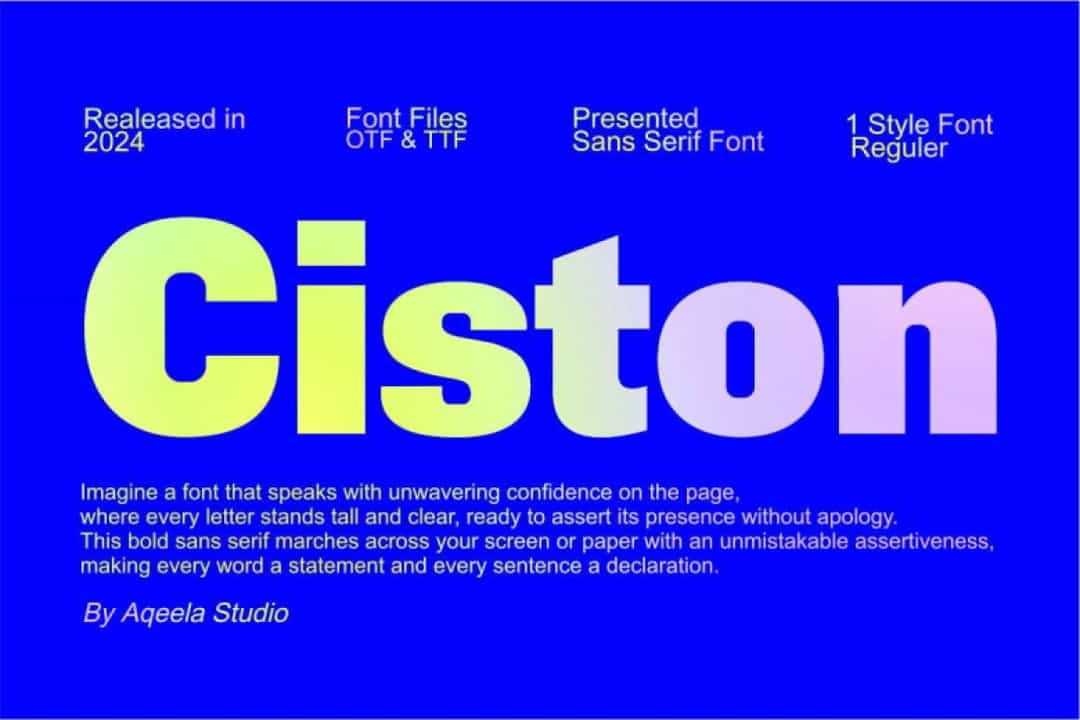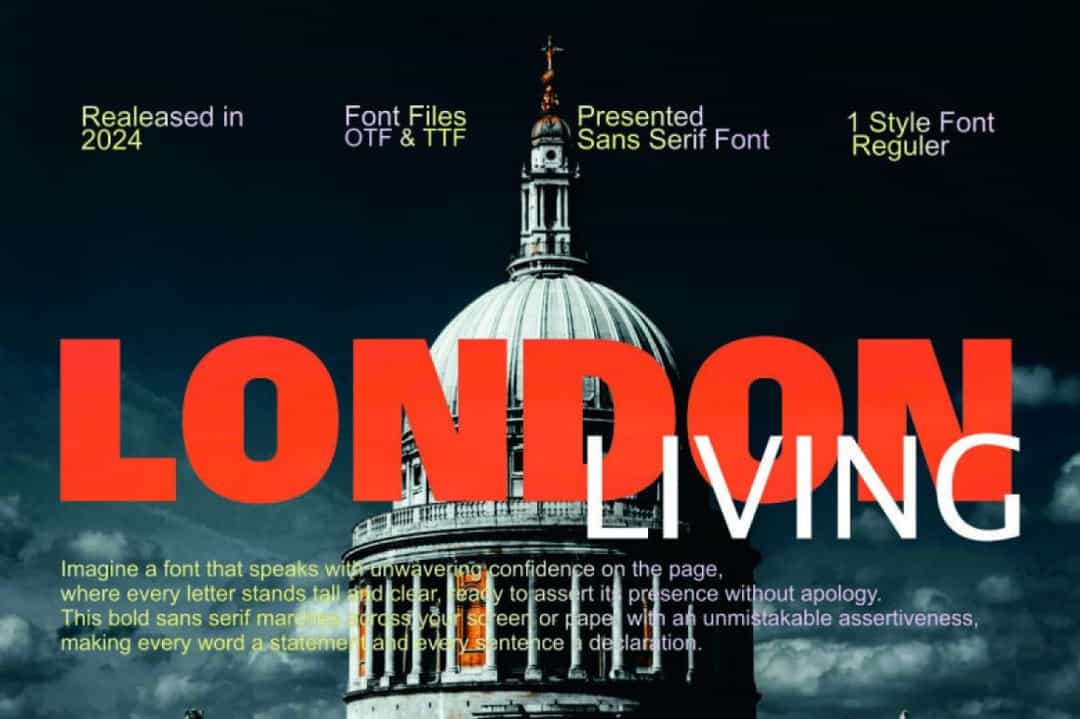
Discover Ciston Font, part of the Sans Serif Display collection—a versatile and unique font perfect for adding a personal touch to your projects. Download it for free and enjoy crafting designs with style, from invitations to social media posts. This font is available exclusively for personal use, giving you the freedom to create without limits. Unlock your creativity with Ciston Font today!
Ciston is one of the modern sans serif font that I would say is pretty bold, to begin with since the design is so clean and minimal. The Ciston sans serif font is perfect for brands and designs that don’t want to play it safe— loud and clear, proclaim confidence.